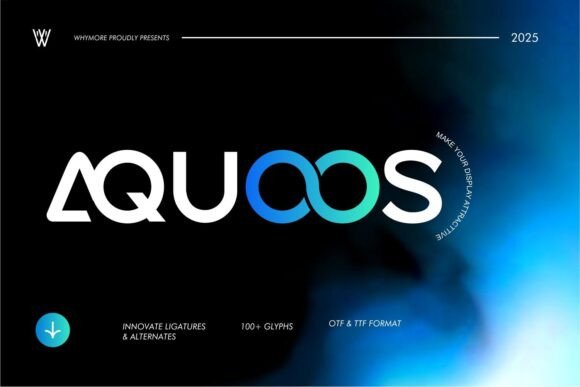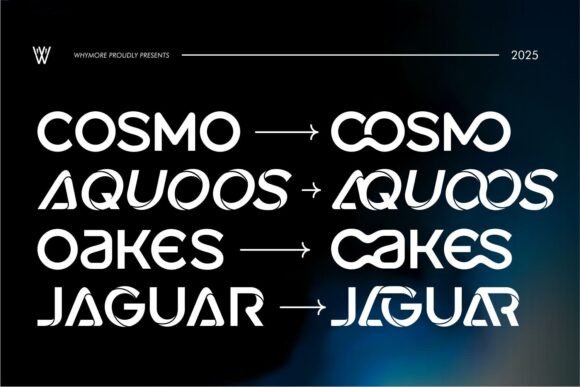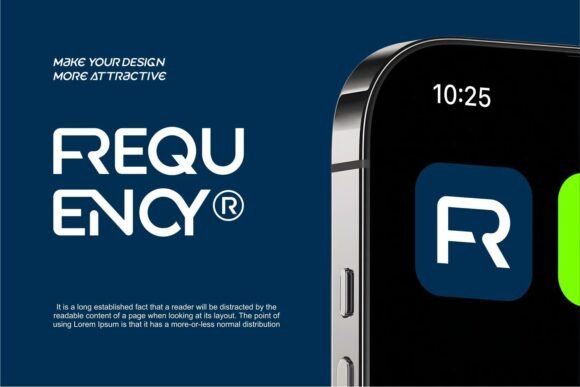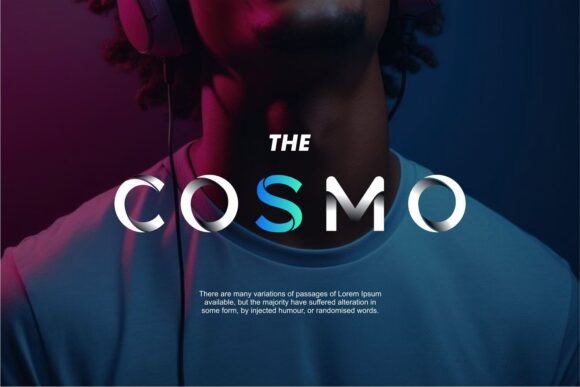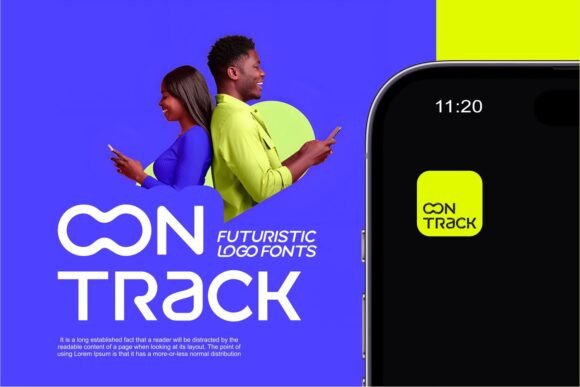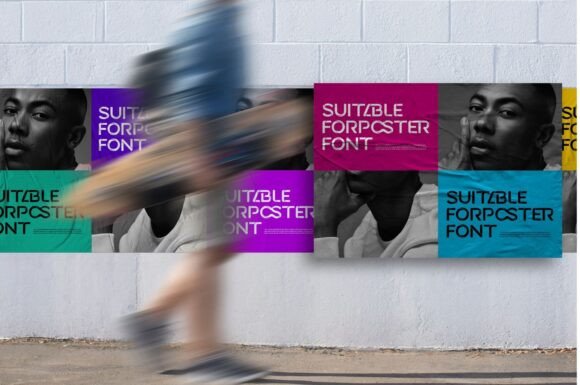
The Future of Design is Here: Discover the AQUOOS Font
Have you ever stared at a blank canvas, mind racing with ideas, yet unable to pinpoint the perfect font to bring your vision to life? This is a moment we’ve all been there, designers and non-designers alike. It’s that split-second of creative frustration, where the perfect font can make or break the entire design. This is where AQUOOS Font comes in – a cutting-edge display font that embodies innovation and elegance.
As a versatile and distinct font, AQUOOS is perfect for projects that demand a modern and forward-thinking aesthetic. From branding and logo design to tech-inspired visuals and web or mobile applications, this font is an excellent choice for designers looking to elevate their designs.
Aquoos Font Key Features
- Font Family: Aquoos is a modern sans-serif font family designed for digital use.
- Character Set: Supports a wide range of languages, including Latin, Cyrillic, and Greek scripts, making it suitable for global applications.
- Unique Characteristics: Features a unique blend of geometric and organic shapes, resulting in a clean, modern aesthetic with excellent legibility.
- Style Variations: Available in multiple weights, from Light to Bold, allowing for flexibility in typography and design applications.
A Review of Aquoos Font
Aquoos Font caught my attention with its sleek, modern design. The font’s versatility shines through in its various weights and styles, making it perfect for creating visually appealing digital experiences ✨. The font’s clean lines and minimalistic aesthetic ensure it pairs well with a wide range of backgrounds and color schemes. Additionally, the font’s legibility is impressive, making it suitable for both body and headline text.
However, I do have some reservations about Aquoos Font. One of the major limitations I found was its lack of support for older browsers and operating systems ⚠️. This may be a concern for designers working on projects that require cross-browser compatibility. Another limitation is the font’s limited language support, which may be a drawback for designers working on multilingual projects.
Aquoos Font is a solid choice for designers looking for a modern, stylish font. While it has its limitations, the font’s versatility and legibility make it a worthwhile option for many projects. However, designers should be aware of the potential issues with cross-browser compatibility and language support before deciding to use Aquoos Font.
- Modern, sleek design
- Various weights and styles
- Clean lines and minimalistic aesthetic
- Impressive legibility
- Supports a wide range of languages
- Not optimized for older browsers and operating systems
- Limited language support
Getting the Most Out of Aquoos Font
To get the most out of Aquoos Font, try the following:
- Use it for titles and headings to create a strong visual impact.
- Experiment with different font sizes and colors to create contrast and emphasis.
- Pair Aquoos Font with other fonts to create a unique and visually appealing typography.
Aquoos Font is commonly used for:
- Editorial and publishing design. Alternatives to Aquoos Font
Compared to Aquoos Font, Lato is more geometric and lacks the organic feel of Aquoos. However, Lato is more versatile and can be used for a wide range of projects, from corporate websites to magazines.
Montserrat is a sans-serif font designed by Julieta Ulanovsky. It is a geometric font inspired by the urban landscape of Montserrat, a city in Argentina. Montserrat is a great alternative to Aquoos Font for projects that require a strong and modern feel. It is highly legible and works well in digital and print media.
Does the Aquoos Font support ligatures and contextual alternates?
Yes, the Aquoos Font includes ligature and contextual alternate features. These advanced typographic features can be enabled in your design software by using the OpenType layout features. For example, in Adobe Illustrator, you can access these features through the “Character” panel and selecting the “Ligatures” and “Contextual Alternates” options.